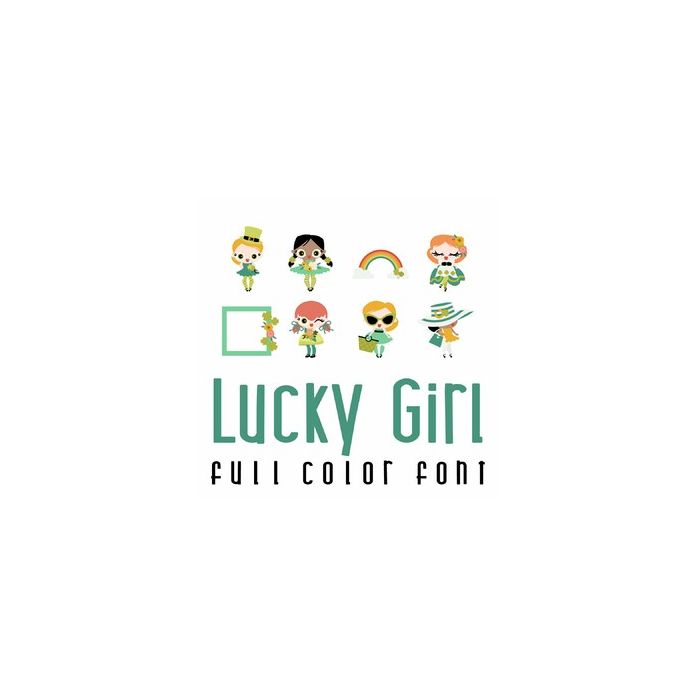
This full color font 26 adorable lucky girl imagery and phrases. Perfect for St. Patrick's Day, Spring, gifts, crafts, cards, parties, scrap book pages, planner stickers and more!